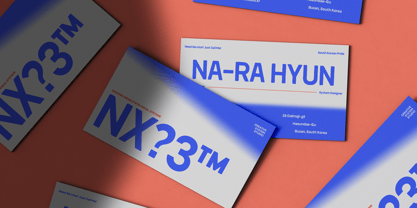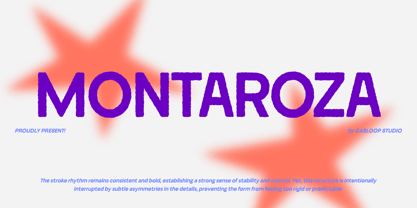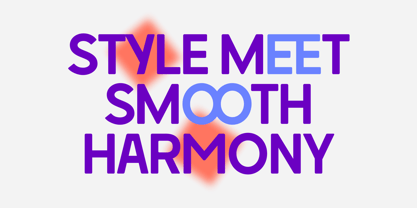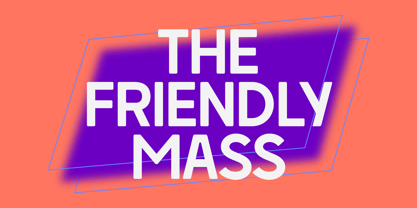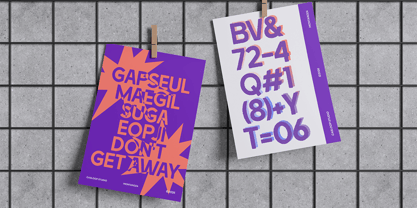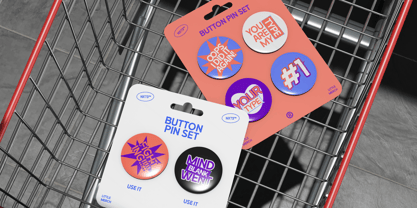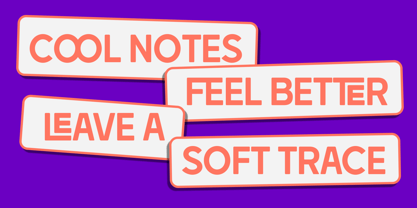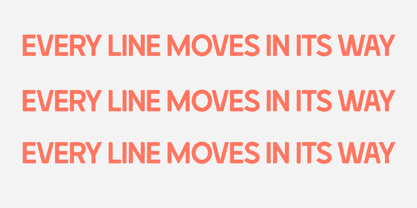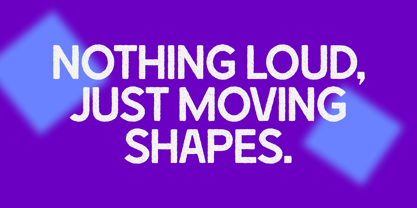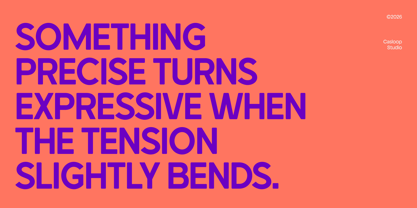
Montaroza
por Casloop Studio
A família de fontes Montaroza foi desenhada por Wantara Putra e publicada pela Casloop Studio. Montaroza contém 3 estilos e opções de pacote familiar. Saiba mais sobre esta família
Sobre a família
Montaroza is a rough texture display font that blends geometric precision with modern irregularity, creating a bold and confident visual identity. Its key characters O, M, E, A, R, and Q are built on solid geometric foundations with clean base forms and consistent, heavy stroke rhythm that establish a strong and stable structure. This balance is intentionally disrupted by subtle asymmetrical details, adding a contemporary edge that feels expressive without losing control. The result is a compact, striking silhouette that performs exceptionally well in headlines, logos, packaging, and branding projects that demand a modern, textured, and impactful presence. Recommended pairing with: Montserrat, Space Grotesk, Poppins, Helvetica Neue, Futura, Gotham
Designers: Wantara Putra
Fundição: Casloop Studio